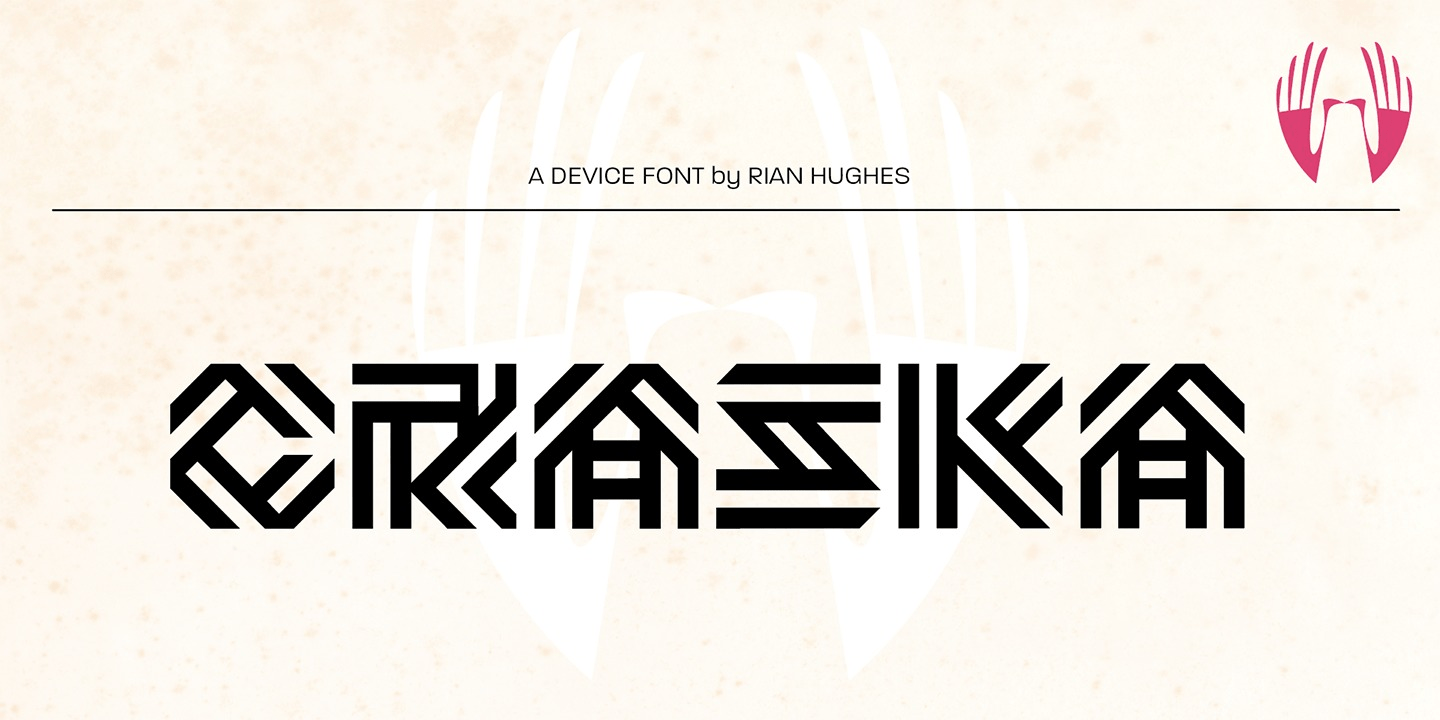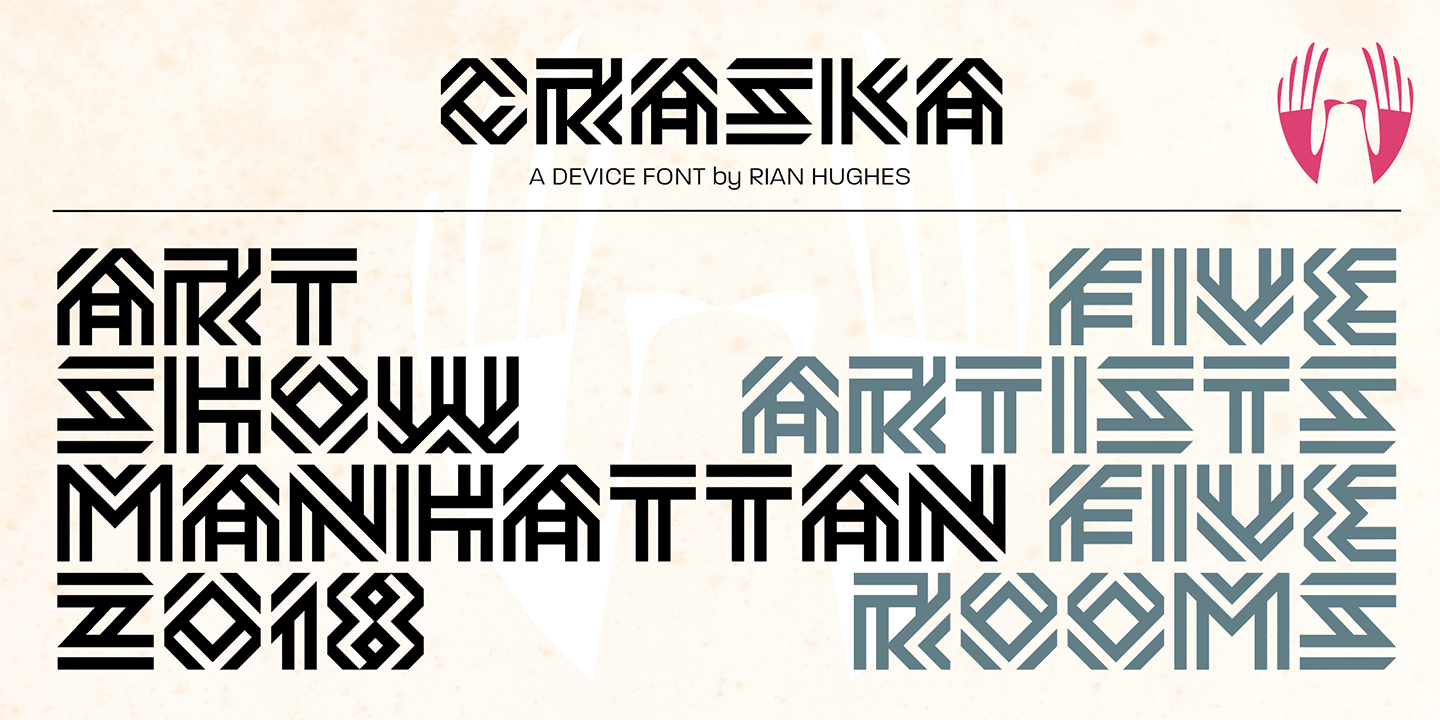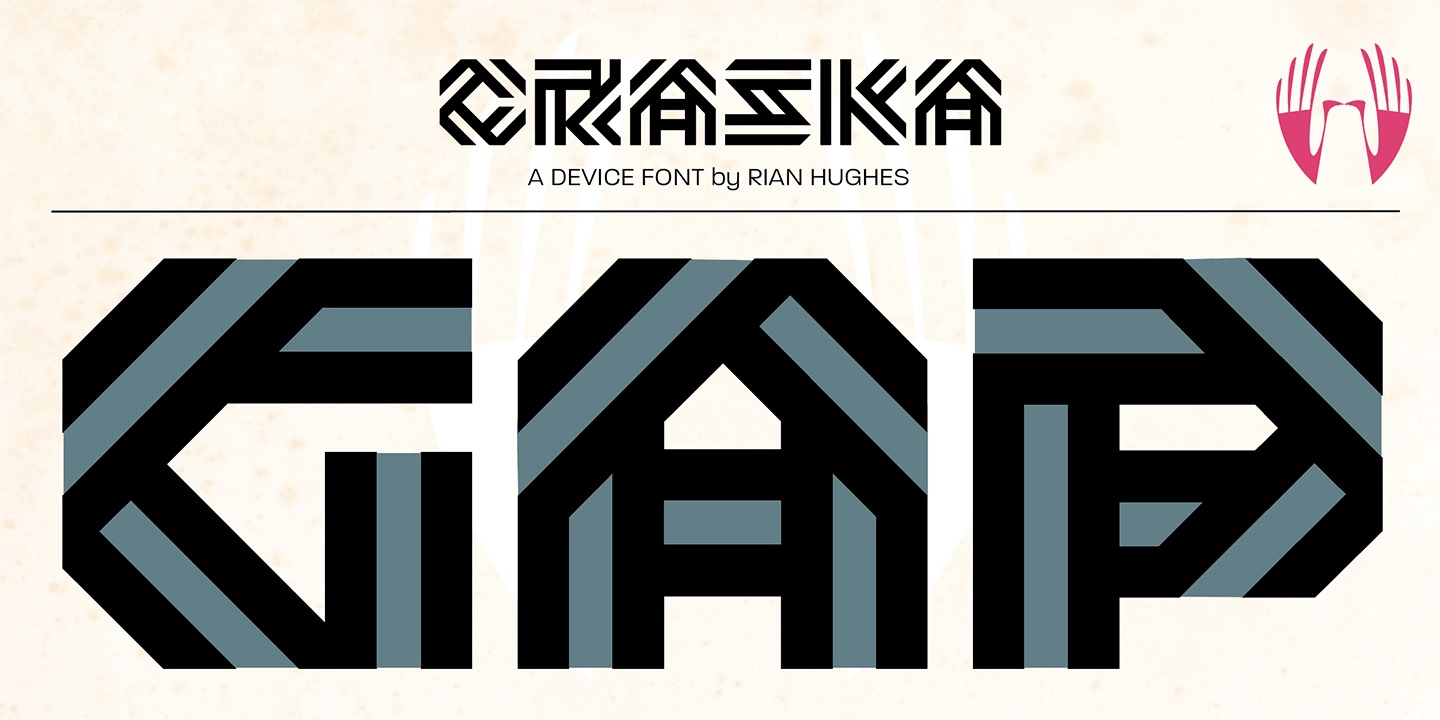
Craska
About Craska
A bold and arresting geometric font built from parallel stripes. Most effective in short headings or logos at larger, display sizes.